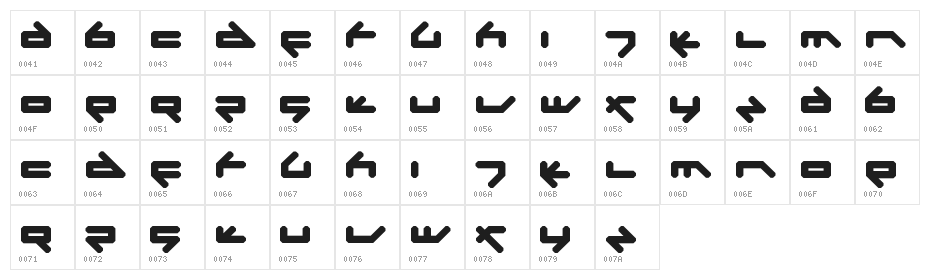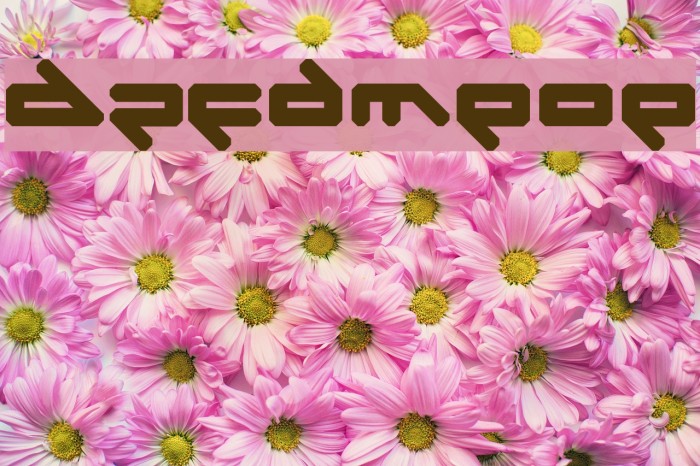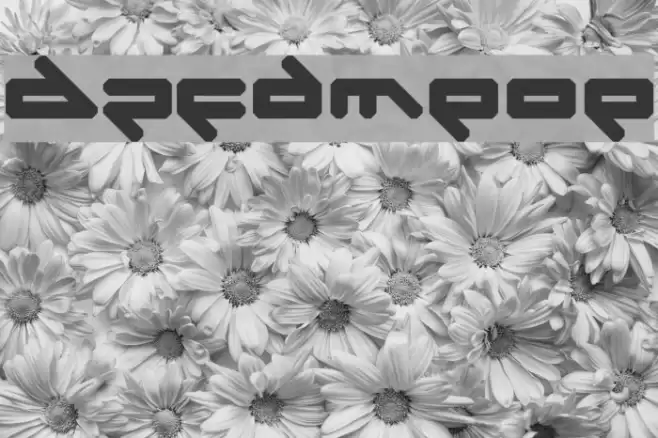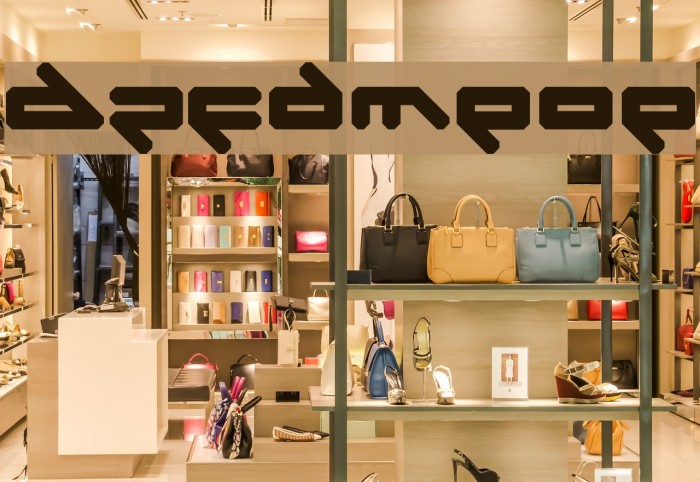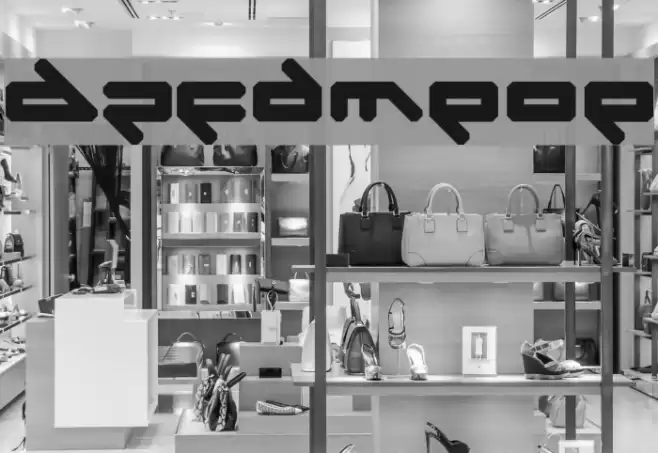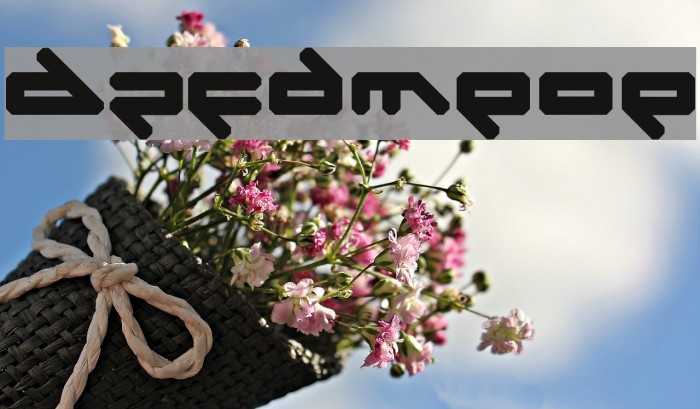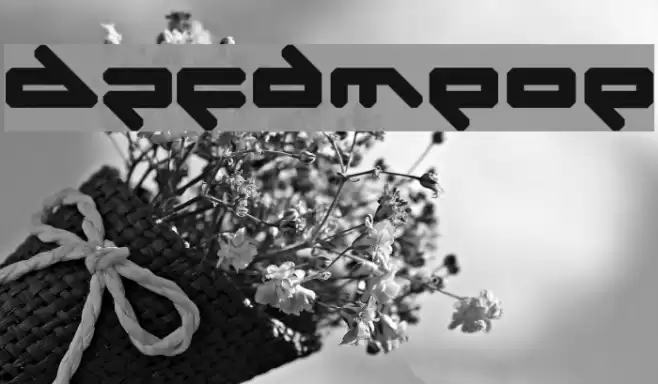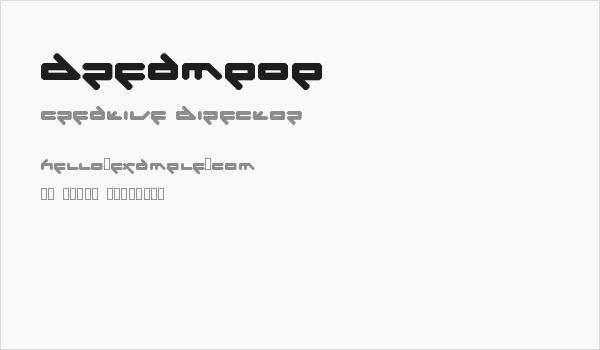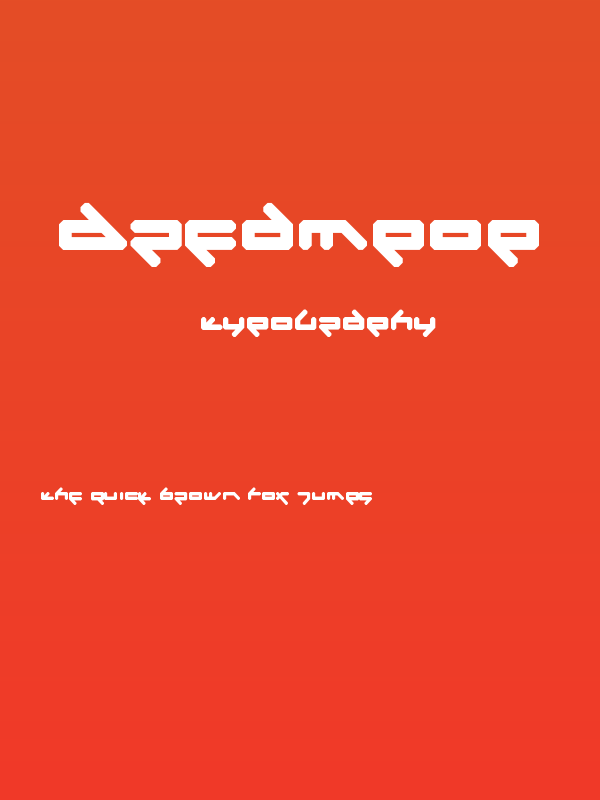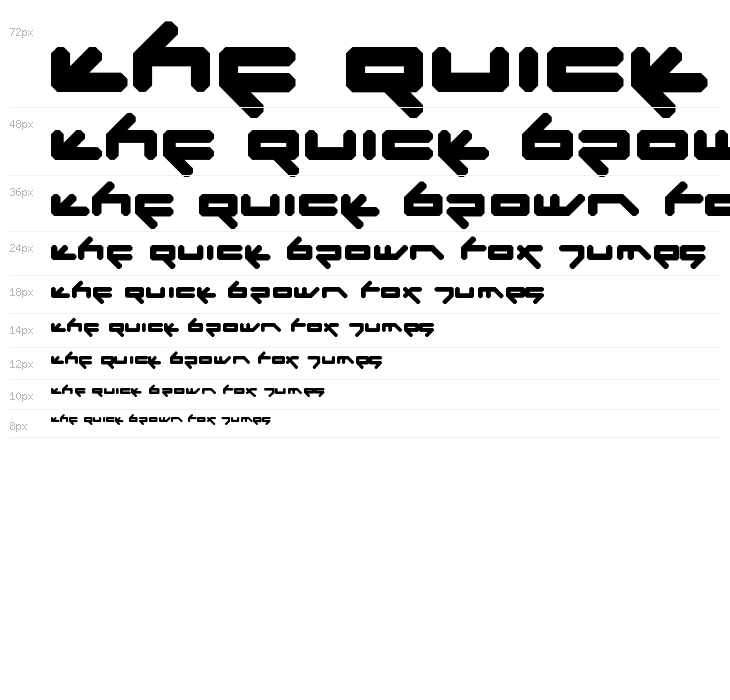
dreampop Font
dreampop Description
This font features a futuristic and geometric design, characterized by bold, angular shapes and a consistent stroke width. The letters are crafted with a unique, almost alien-like aesthetic, making it stand out with its sharp edges and distinct style. The uppercase and lowercase letters share a similar structure, maintaining a cohesive look throughout the typeface. The absence of curves and the presence of straight lines and angles give it a very modern and tech-inspired appearance. The font lacks traditional serifs, opting instead for a clean and streamlined look that is both eye-catching and highly stylized.
| Proposed Projects | Ideal for sci-fi themed projects, tech branding, video game interfaces, and futuristic posters. |